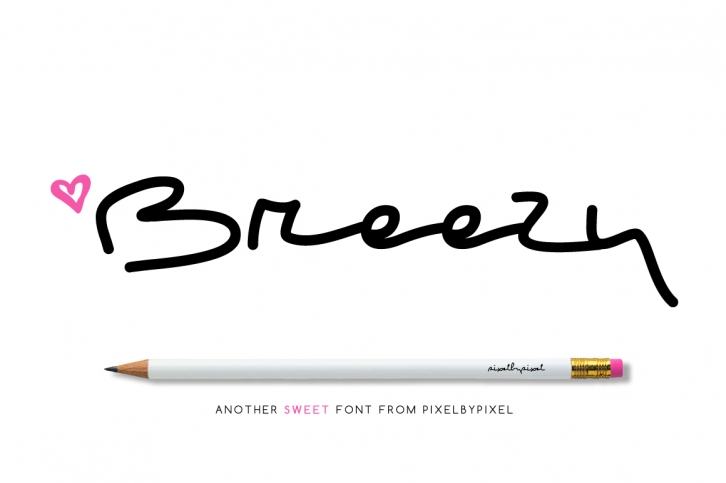
Breezy Freestyle Font Download
Breezy Freestyle is a gorgeous font that was realeased on June 1, 2018. The font can be used in many style contexts and design environments. Perfect for invitations, magazines, websites, logos, and more! It was designed by pixelcolours and the file size is 12.59 MB. Thanks for checking out this font!